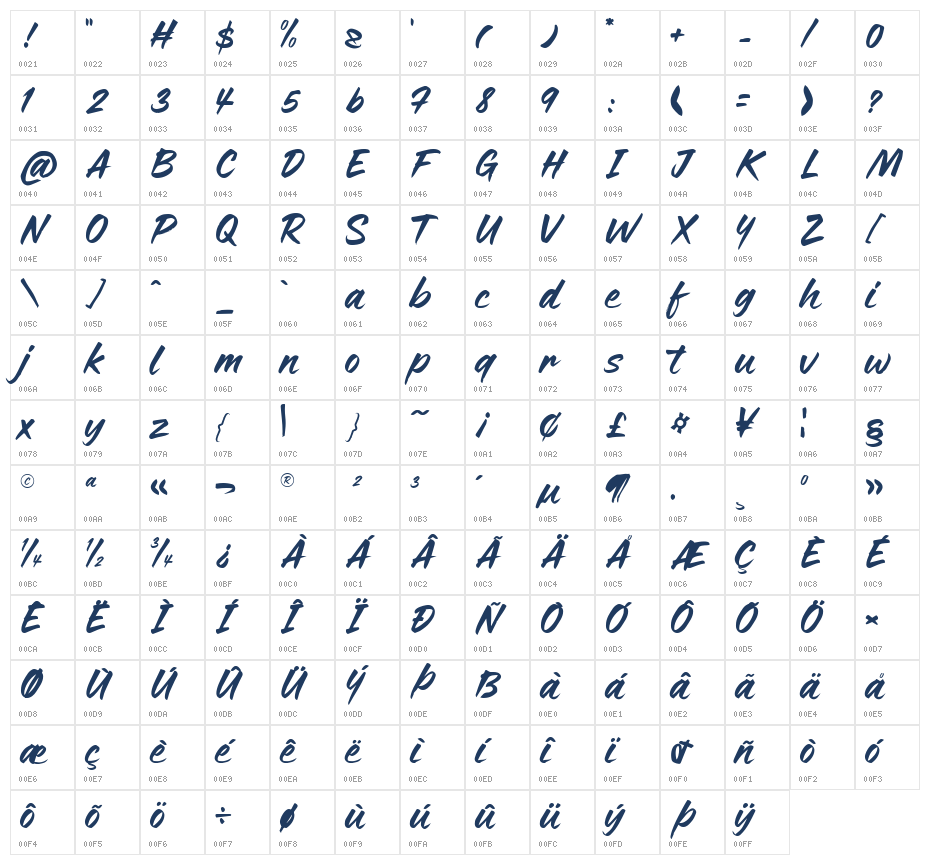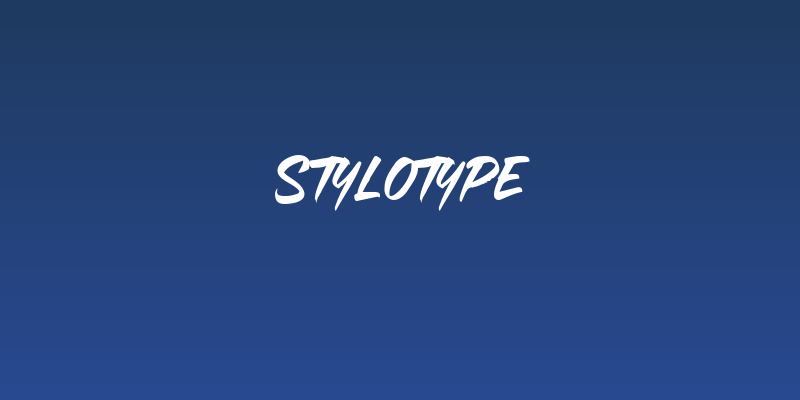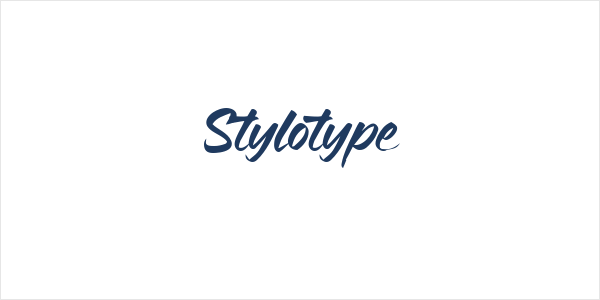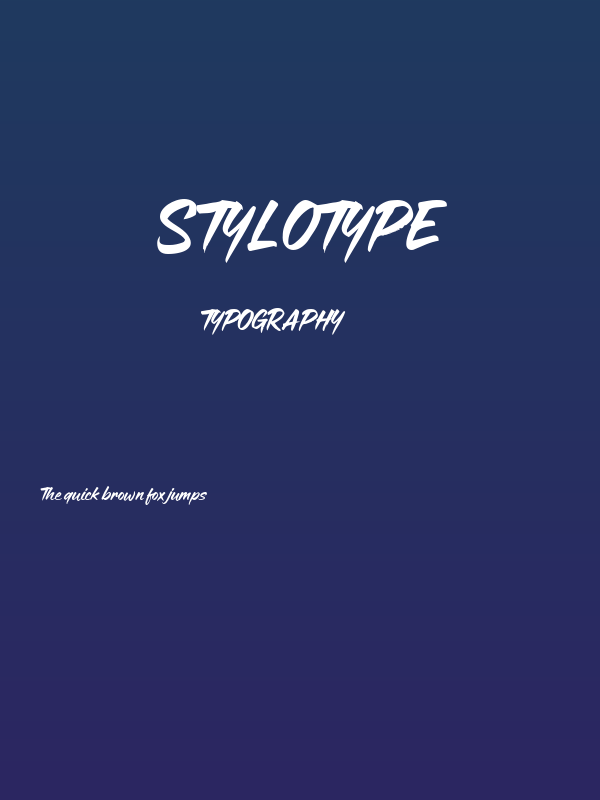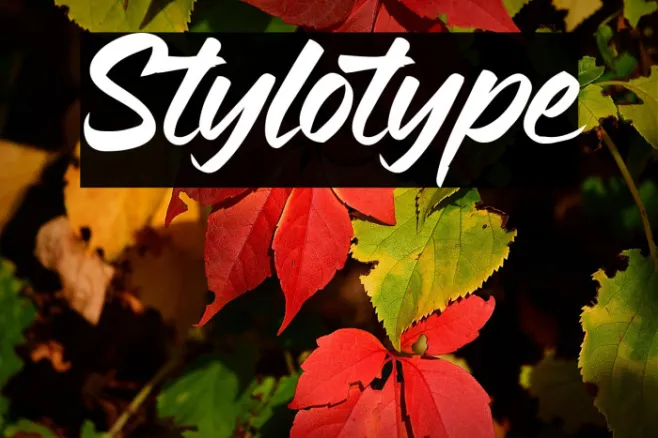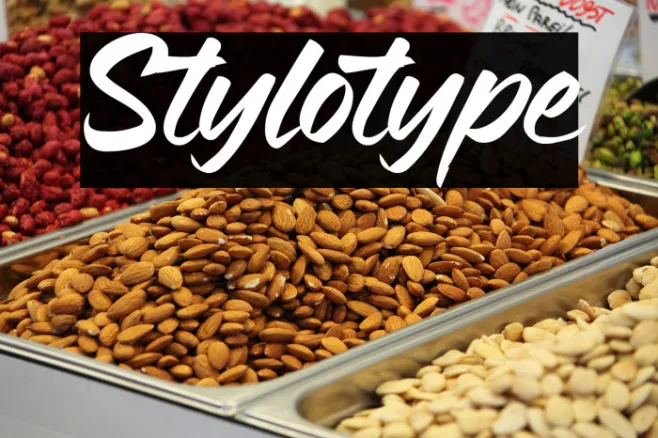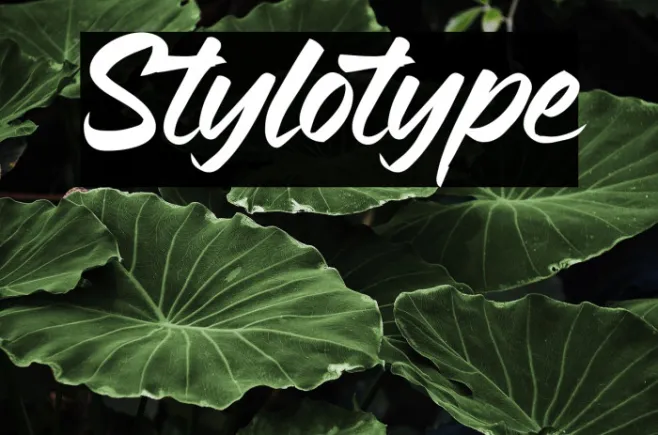
Stylotype Font
Stylotype Description
A casual, handwritten script font with a dynamic and energetic style, featuring slightly slanted characters with varied stroke widths.
| Overall Style | Casual, Handwritten, Dynamic |
| Use Case | Logos, Invitations, Posters, Branding |